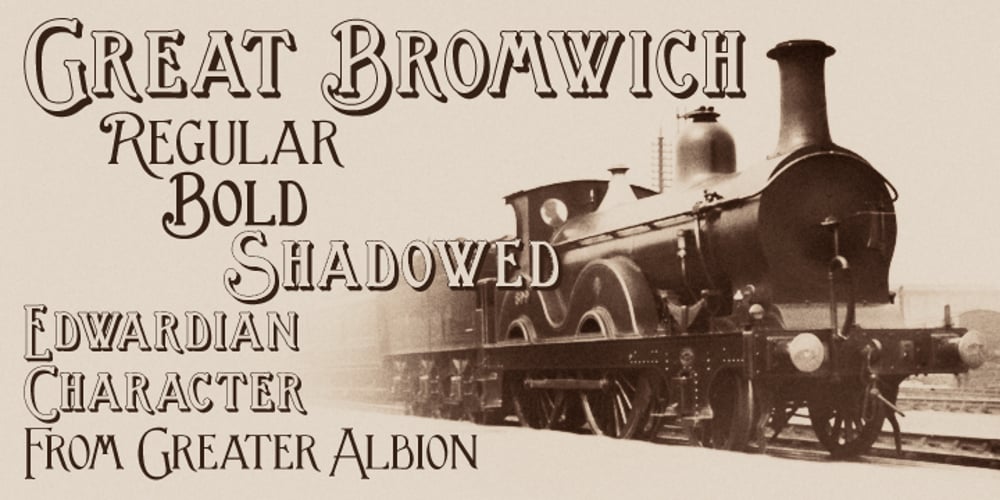
Great Bromwich Font Family was designed by Paul James Lloyd and published by Greater Albion Typefounders. Great Bromwich contains 3 styles and family package options. Great Bromwich takes the ideas in Greater Albion’s Bromwich family that little bit further. It can be used on its own, or as a compliment to Bromwich. Great Bromwich uses specially re-designed large and small capitals, to enable that bold headline statement to be made with impressive Edwardian flair. In the spirit of railway travel posters and illustrated news journals, its a wonderful font for poster design, or for book covers and other work with a period theme.